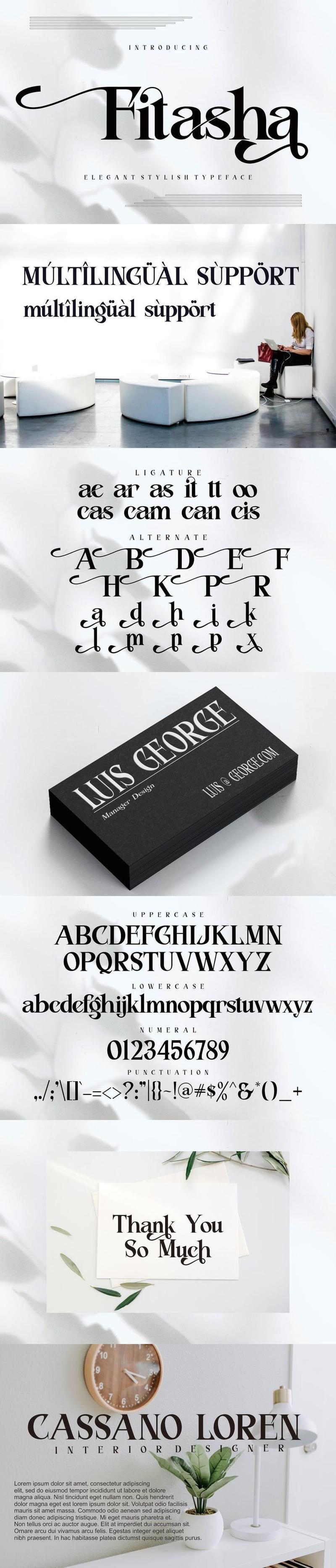
Fitasha – Elegant Typeface Font 6XR9WWP
Introducing our new product **Fitasha – Elegant Typeface Font** Modern Font
**Fitasha – Elegant Typeface Font** – Modern Font is a bold and authentic display font. The font is suitable for any branding project like logo, t-shirt printing, esport, and many more. outstanding in a wide range of contexts.
**Features**
* Uppercase
* lowercase
* multilingual
* ligature
* alternate